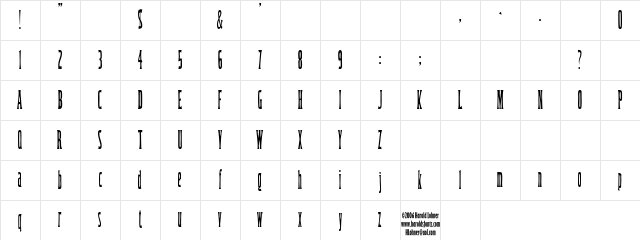
Cinderella Regular Free Font
Cinderella Regular
Design Context for Cinderella
Cinderella is a composed and adaptable typeface that performs quietly and consistently across a wide range of design contexts.